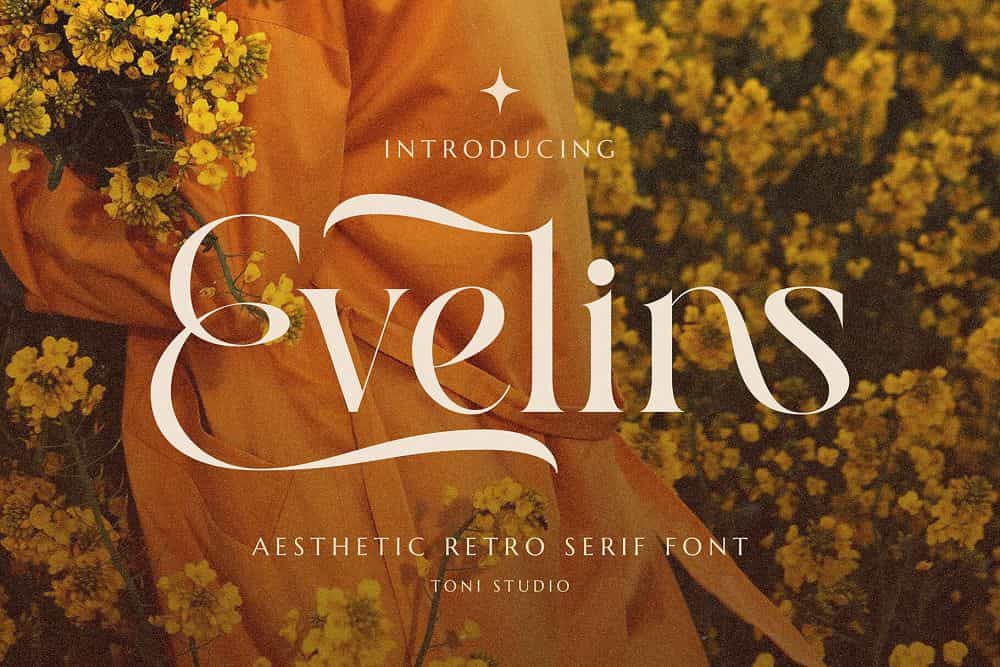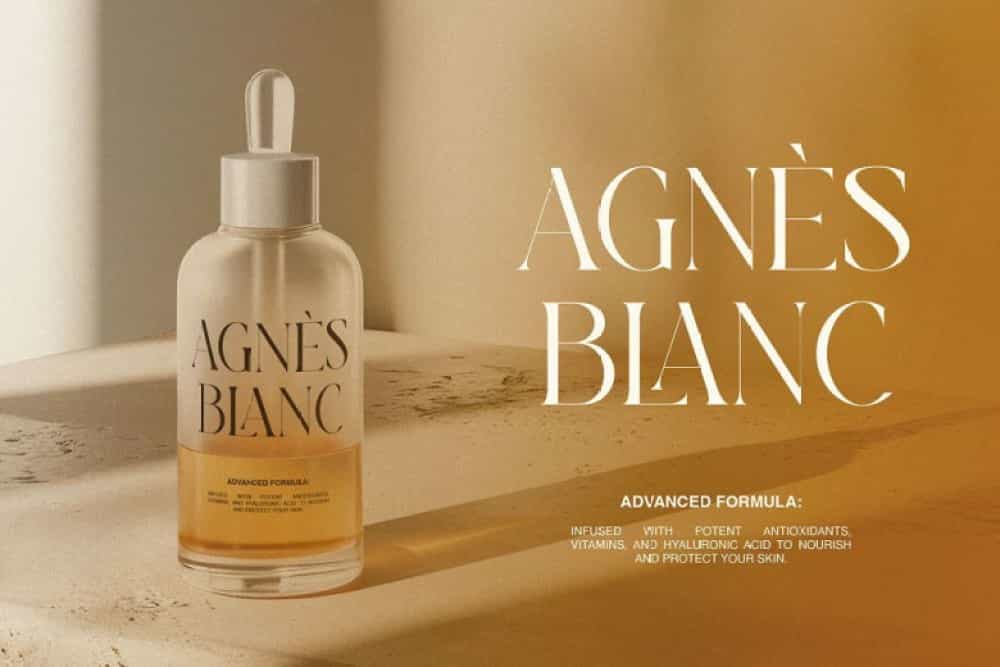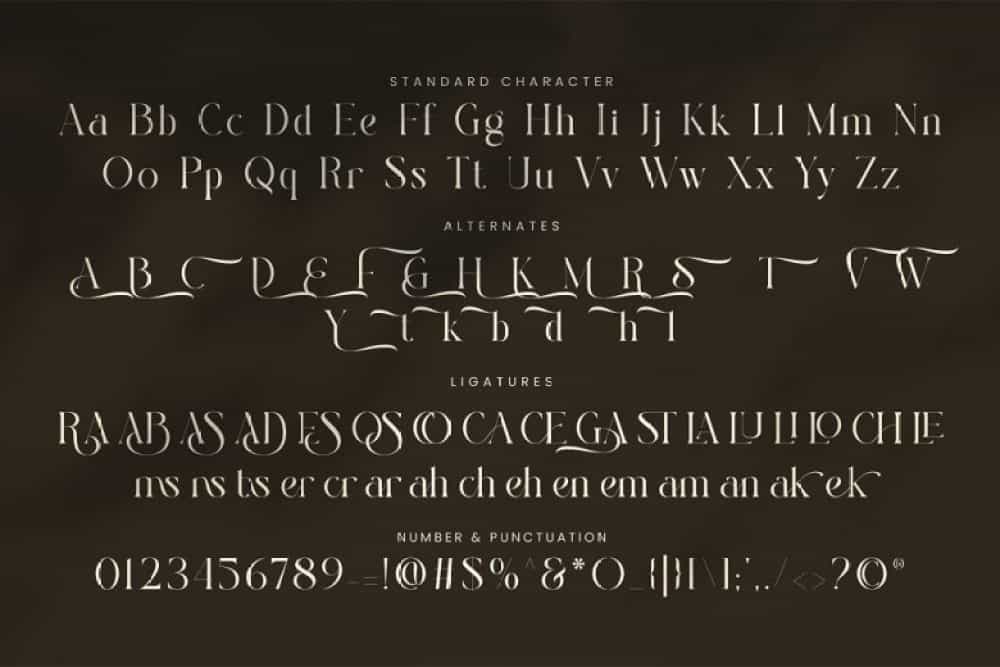
Evelins is a modern retro serif font. This serif font has a beautiful style that gives a luxurious and elegant look, skillfully changing a romantic theme into beautiful and seductive letters. Evelin’s Font can be used for different purposes and is suitable for logos, crafts, posters, books, and more, that is why every brand becomes unique and memorable.